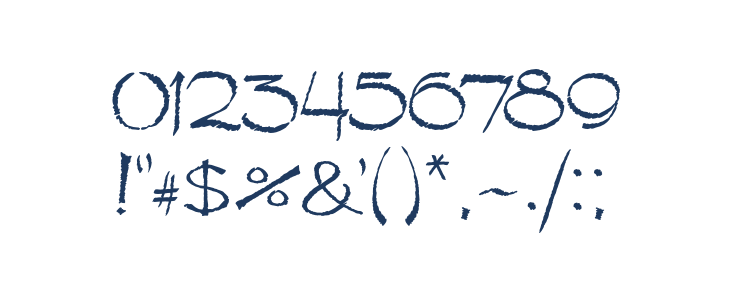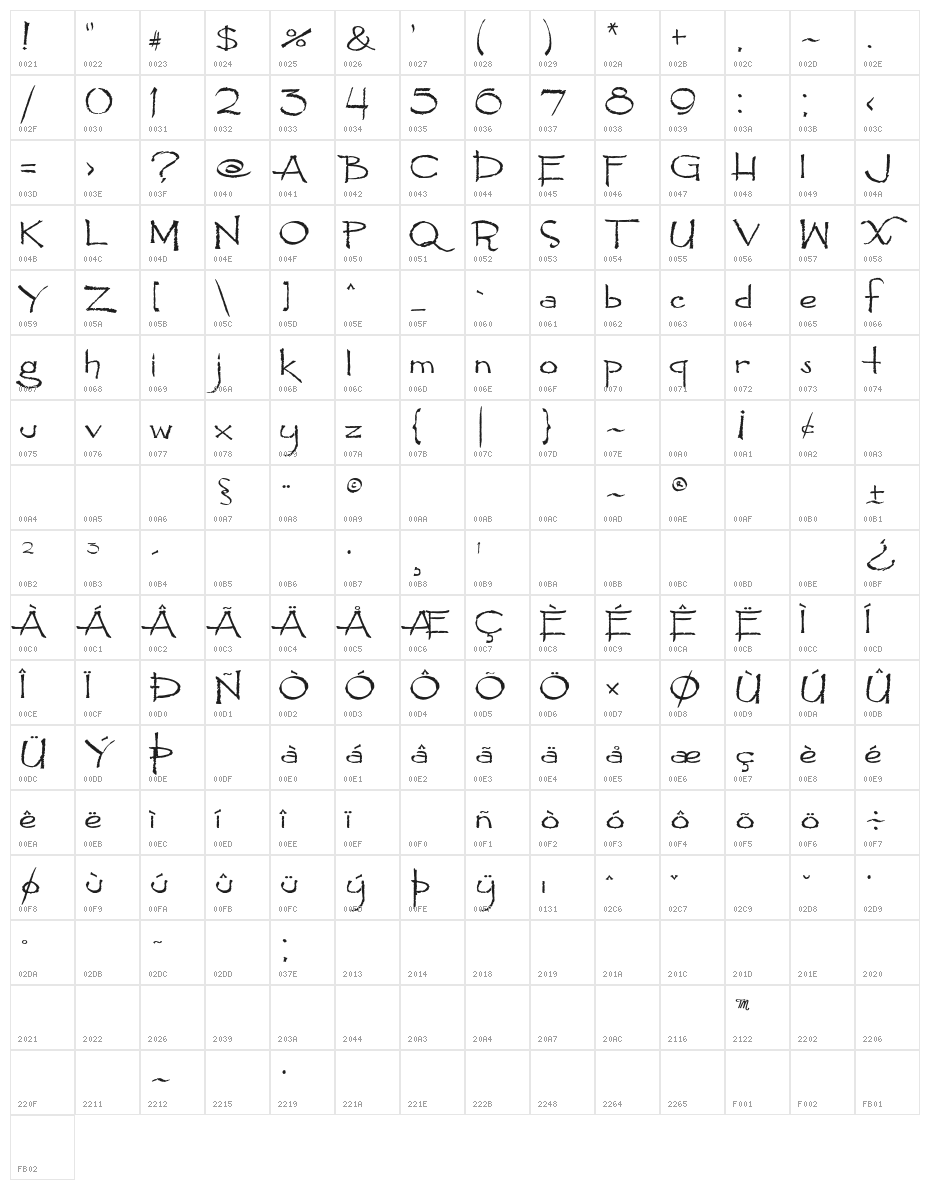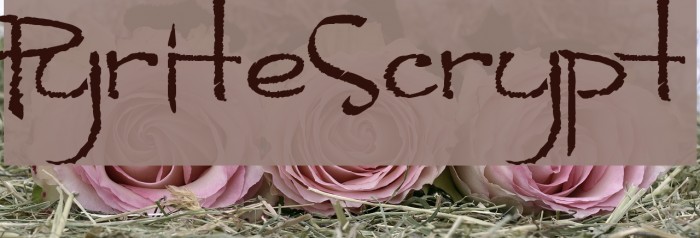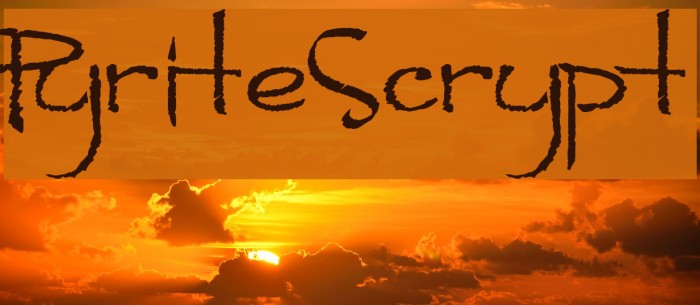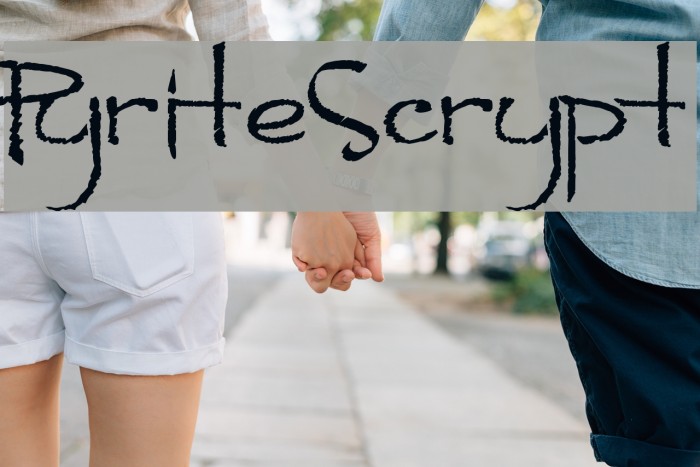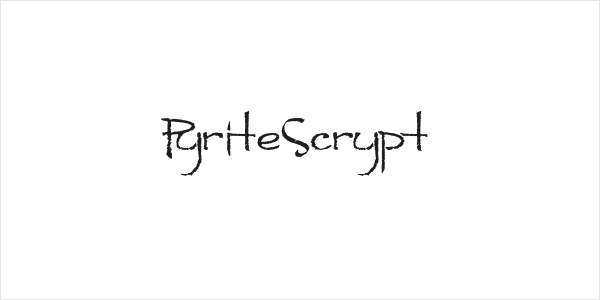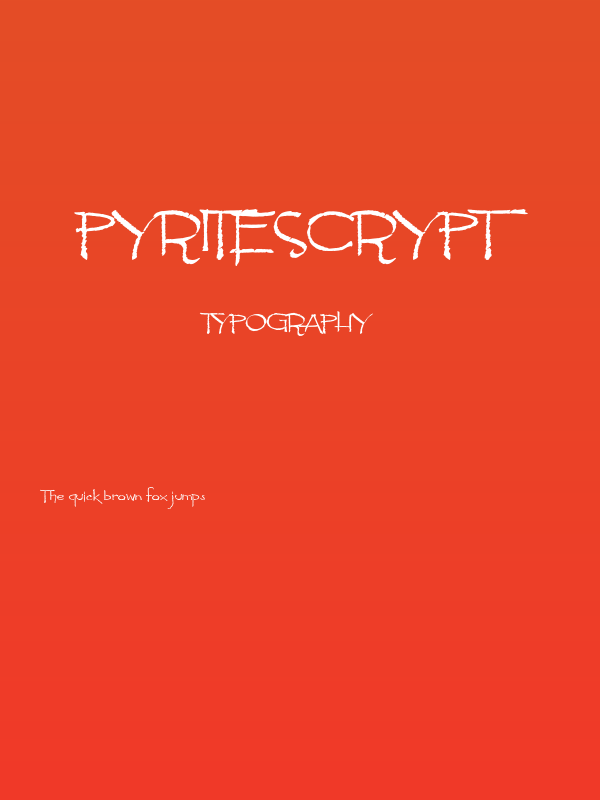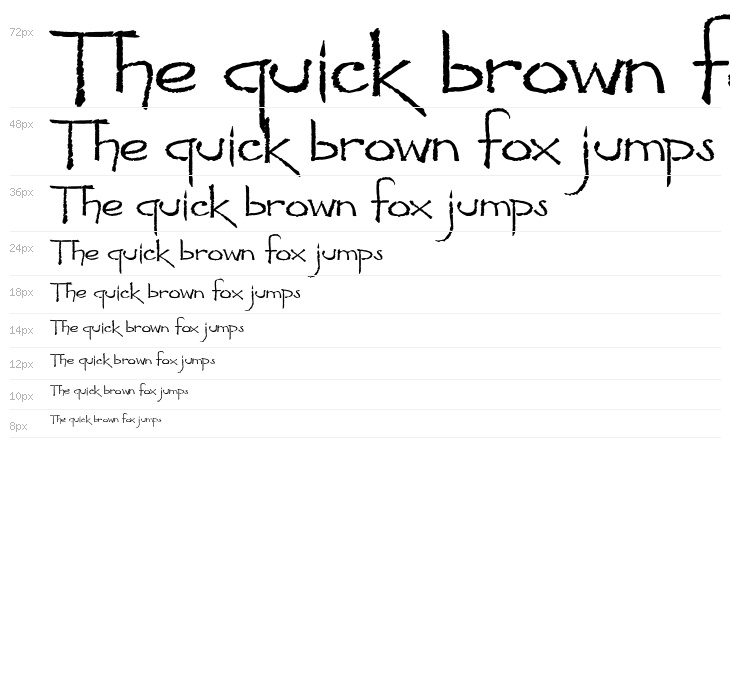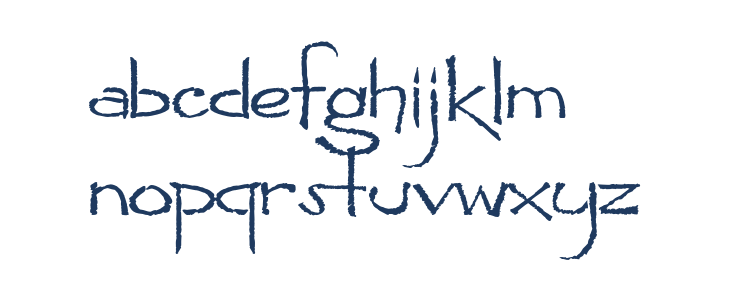
PyriteScrypt Font
PyriteScrypt Description
This font features a rugged, hand-drawn appearance with irregular strokes and a textured finish, giving it a raw and organic feel. The characters are slightly uneven, adding to its handcrafted aesthetic. The uppercase and lowercase letters maintain a consistent style, with a playful yet edgy vibe. Numbers and special characters follow the same design principles, ensuring uniformity across all glyphs. The font's unique style makes it stand out, ideal for projects that require a touch of authenticity and creativity.
| Use Case | Logos, Posters, Artistic projects |
| Proposed Projects | Ideal for artistic projects, branding, posters, and any design requiring a handcrafted look. |